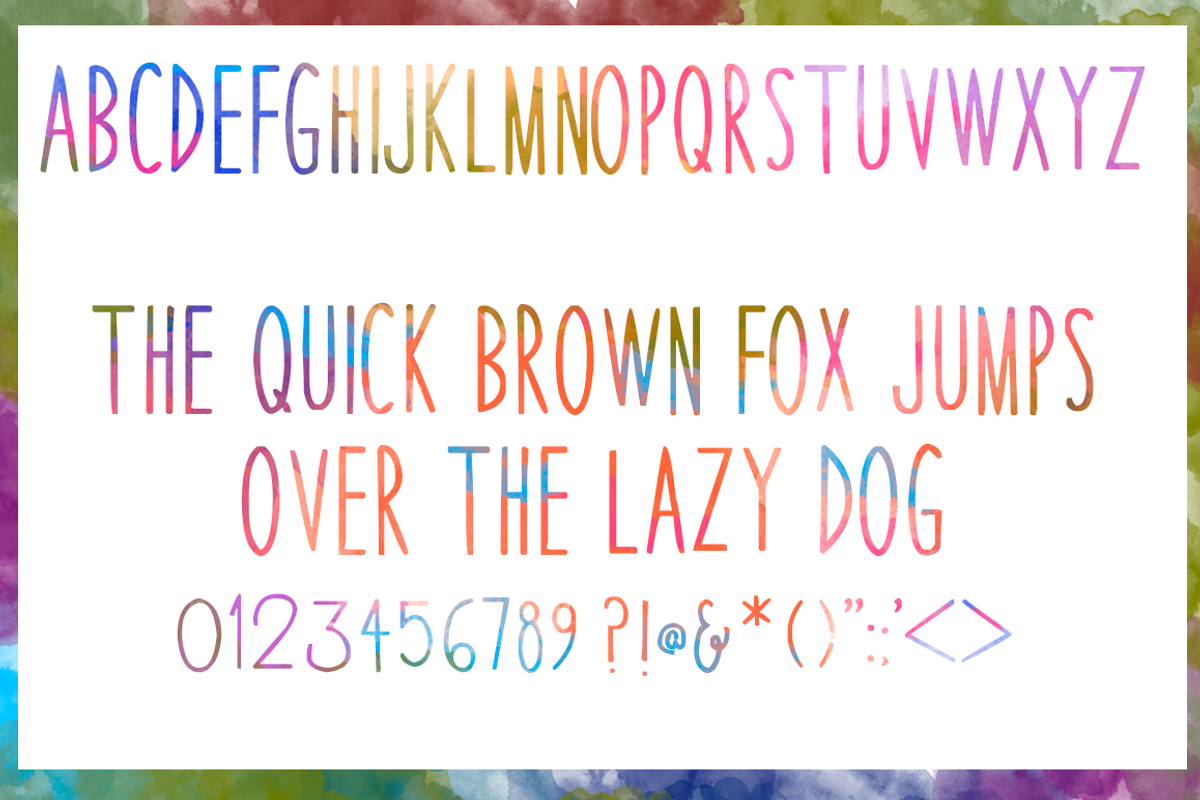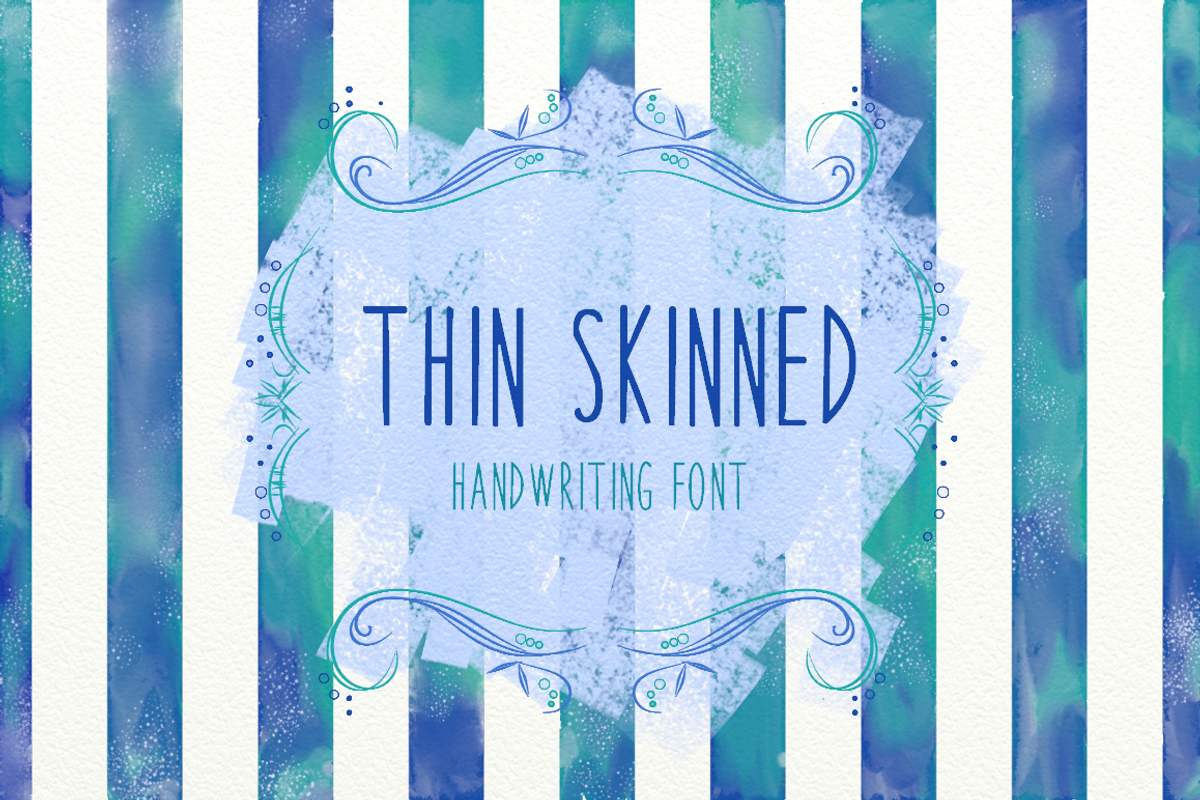
BSD Thin Skinned Font
BSD Thin Skinned Font by Blue Sky Design is a font selected for branding, posters, packaging, typography.
Why BSD Thin Skinned Font is worth a look
BSD Thin Skinned Font by Blue Sky Design fits naturally into Branding, posters, packaging, typography.